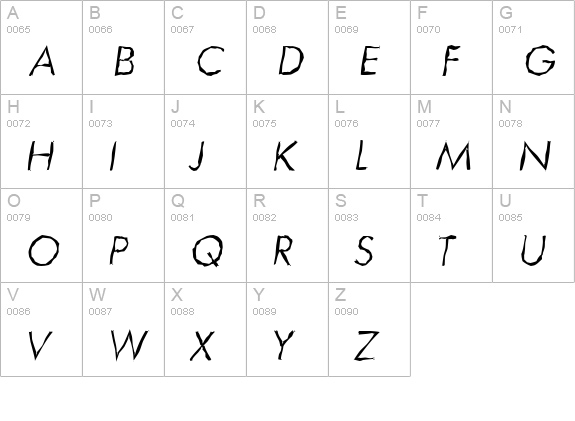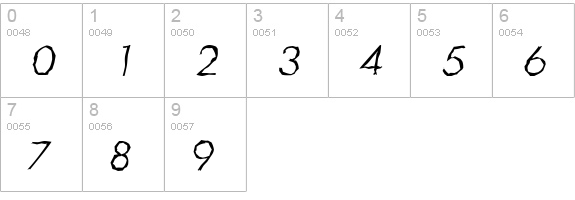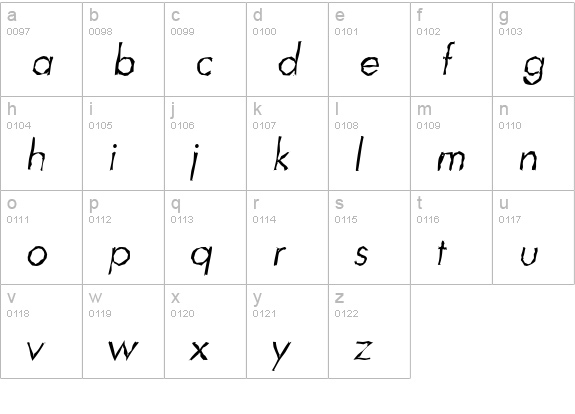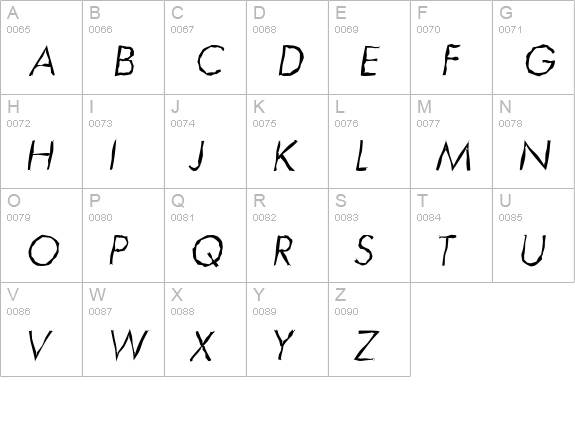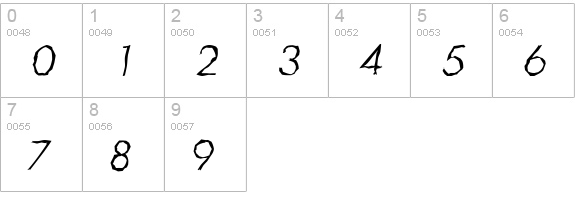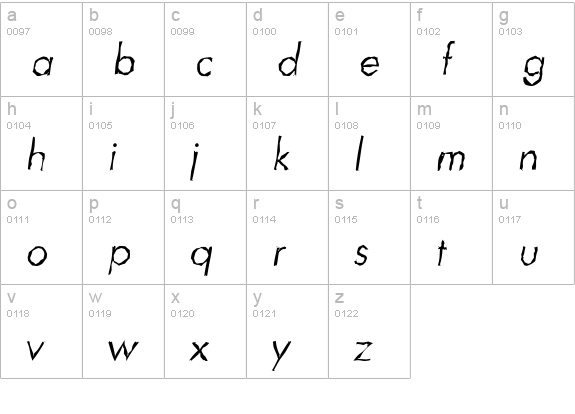
LimerickRandom-Light-Italic is a refined, elegant, italic variant in the LimerickRandom typeface family \xE2\x80\x94 well suited to elegant body text, refined sub-headings, and luxury branding.
Introducing LimerickRandom-Light-Italic font - a whimsical and elegant typeface perfect for adding a touch of creativity to your projects. This unique font features a delicate italic style that exudes sophistication and charm. The playful randomness of the letterforms adds a sense of fun and spontaneity to your designs. Best of all, LimerickRandom-Light-Italic font is available for free download at FontsMarket.com. Whether you're working on a branding project, creating invitations, or designing social media graphics, this font will surely make a statement. Don't miss out on the opportunity to enhance your designs with this beautiful and versatile typeface. Download LimerickRandom-Light-Italic font today and let your creativity shine!